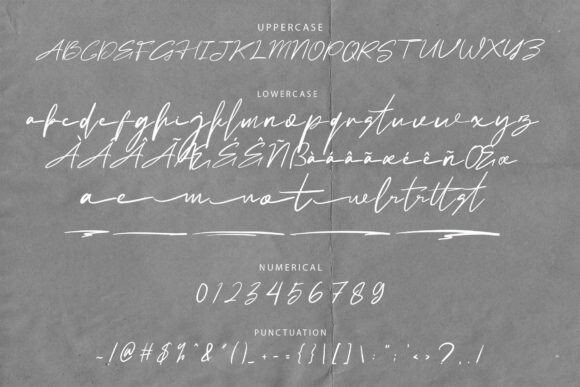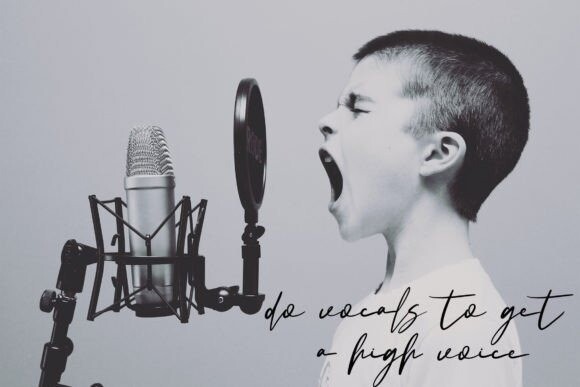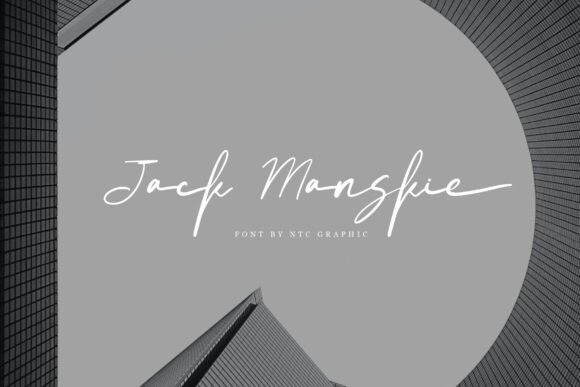
Jack Manskie Font
Jack Manskie Font is a stunning script font designed to bring a personal touch to your projects with its authentic handwritten style. Each character is meticulously crafted, giving your designs a unique, eye-catching appeal. Perfect for enhancing the visual charm of your product, this font adds creativity and elegance to any design.